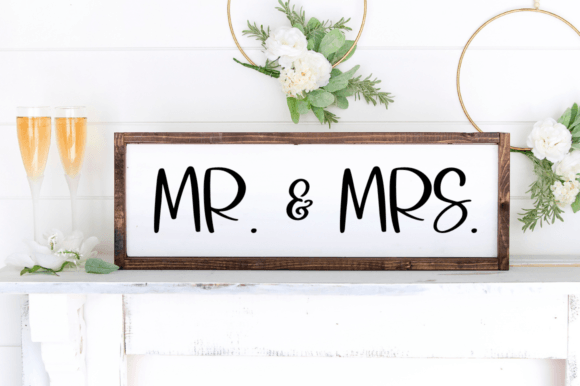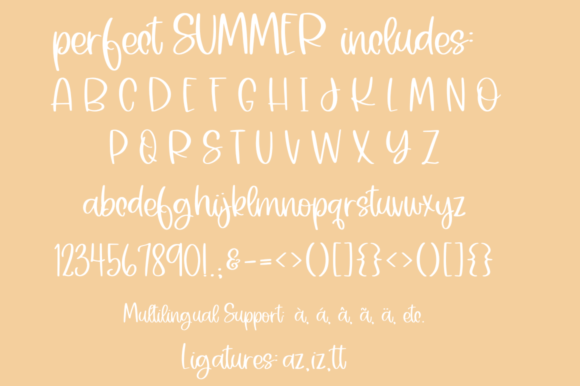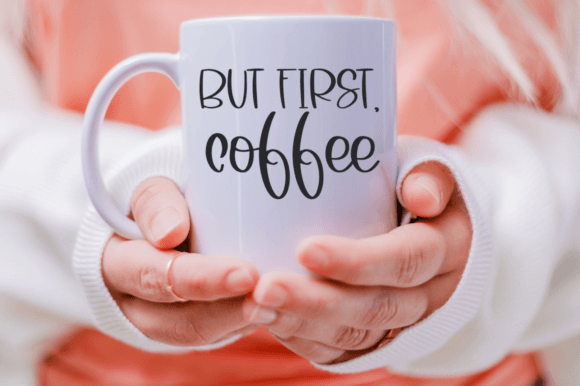
Perfect Summer Font
About the Perfect Summer Font
Experience the unique personality of Perfect Summer Font, a font designed for impact. Looking for a cute and whimsical script font to add a touch of playfulness to your designs? Look no further than Perfect Summer Font! This cursive font is perfect for creating designs that are both charming and eye-catching, from SVG designs to cute greeting cards. This handwritten font has been carefully crafted to be both adorable and legible, so you can be sure that your message will come across loud and clear.
Perfect Summer Font’s playful, slightly informal style makes it ideal for branding projects targeting younger demographics, greeting cards, invitations, and short-form social media content. It works exceptionally well in headlines, short taglines, and packaging design where its whimsical charm can shine. However, its cursive nature and slightly less consistent letterforms make it unsuitable for extended body text or UI elements requiring high legibility.
Pairing Perfect Summer Font with a clean sans-serif like Lato or Open Sans provides a strong contrast, grounding its playful energy. For a more sophisticated feel, consider pairing it with a classic serif font such as Garamond or Playfair Display. These pairings offer visual balance and enhance readability when used together.
The font projects a friendly, approachable, and light-hearted personality, best suited for brands focused on fun, creativity, and approachability. Avoid using it in contexts requiring formality or seriousness.
Perfect Summer Font Usage Examples
Perfect Summer Font Example